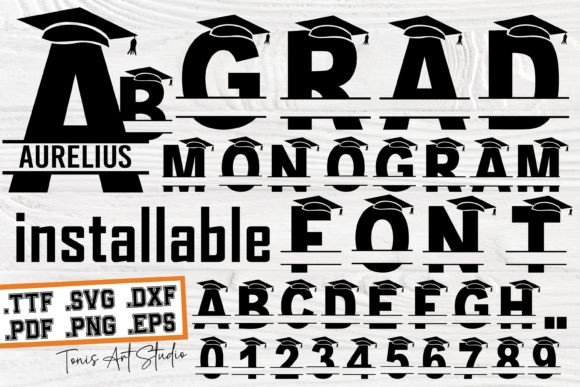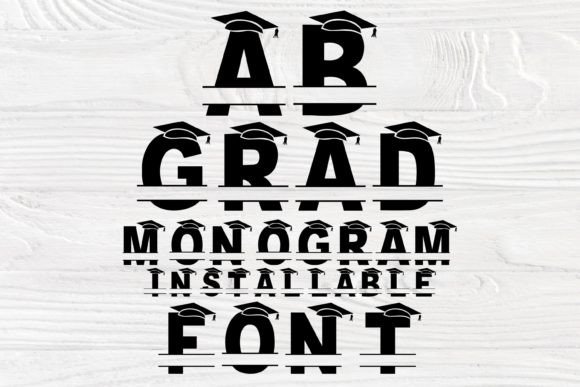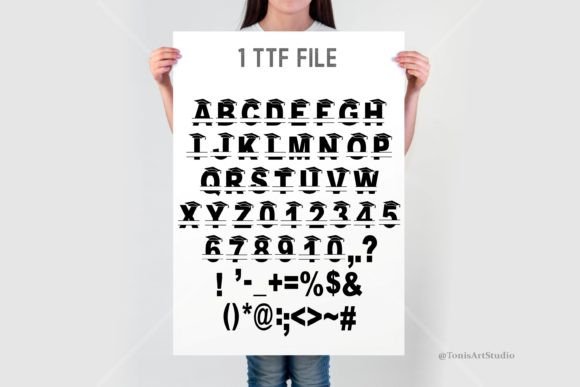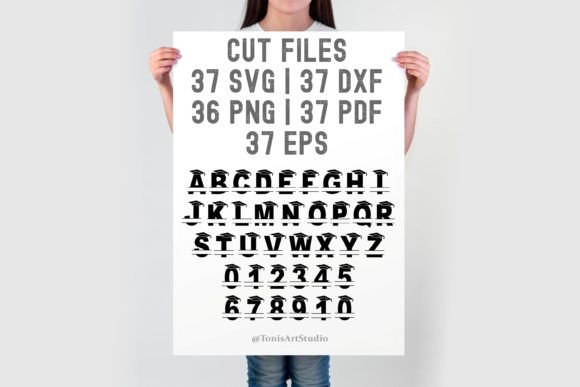
Introducing Grad Monogram Font: Elevate Your Graduation Projects with Style
Are you looking for a unique and stylish font to make your graduation projects stand out? Look no further than Grad Monogram Font! This cool display font is specifically designed to add a touch of sophistication and elegance to your graduation-themed designs. In this article, we’ll dive into the features and benefits of Grad Monogram Font, and explore how you can use it to take your graduation projects to the next level.
What is Grad Monogram Font?
Grad Monogram Font is a modern and trendy display font that is perfect for graduation projects, announcements, and invitations. Its sleek and stylish design makes it ideal for creating eye-catching headlines, titles, and monograms. The font comes with a range of features that make it versatile and easy to use, including:
- Unique Monogram Style: Grad Monogram Font features a distinctive monogram style that is both modern and sophisticated.
- High-Quality Design: The font is designed with high-quality lines and curves, ensuring that it looks great in any size or format.
- Easy to Read: Despite its stylish design, Grad Monogram Font is easy to read, making it perfect for titles, headings, and announcements.
Benefits of Using Grad Monogram Font
So why choose Grad Monogram Font for your graduation projects? Here are just a few benefits of using this amazing font:
- Adds a Touch of Elegance: Grad Monogram Font adds a touch of sophistication and elegance to your graduation projects, making them stand out from the crowd.
- Increases Visibility: The font’s unique design and high-quality lines make it easy to read and understand, even from a distance.
- Versatile: Grad Monogram Font can be used for a range of graduation projects, including invitations, announcements, and social media graphics.
If you’re a designer or crafter looking to take your graduation projects to the next level, here are a few tips and tricks to keep in mind:
- Experiment with Colors: Grad Monogram Font looks great in a range of colors, so don’t be afraid to experiment and find the perfect hue for your project.
- Mix and Match Fonts: Combine Grad Monogram Font with other fonts to create a unique and eye-catching design.
- Pay Attention to Details: Make sure to pay attention to details, such as spacing and alignment, to ensure that your project looks professional and polished.
Grad Monogram Font is a cool display font that is perfect for graduation projects. With its unique monogram style, high-quality design, and ease of use, it’s an ideal choice for designers and crafters looking to add a touch of elegance and sophistication to their work. Whether you’re creating invitations, announcements, or social media graphics, Grad Monogram Font is sure to make your projects stand out. So why wait? Download Grad Monogram Font today and start creating stunning graduation projects that will leave a lasting impression!